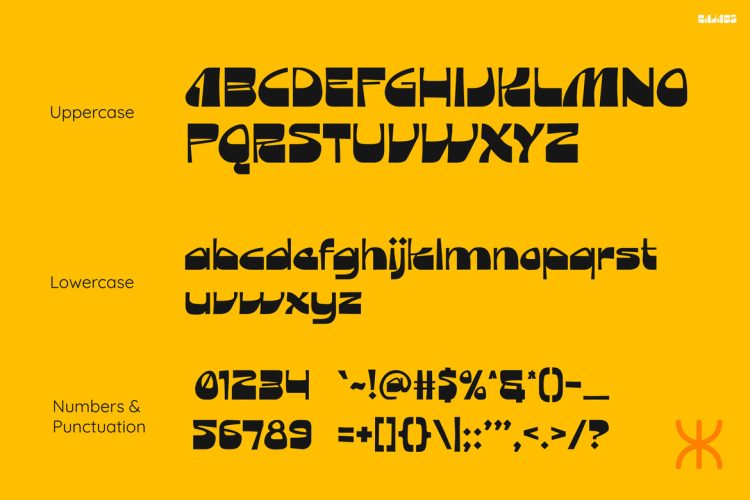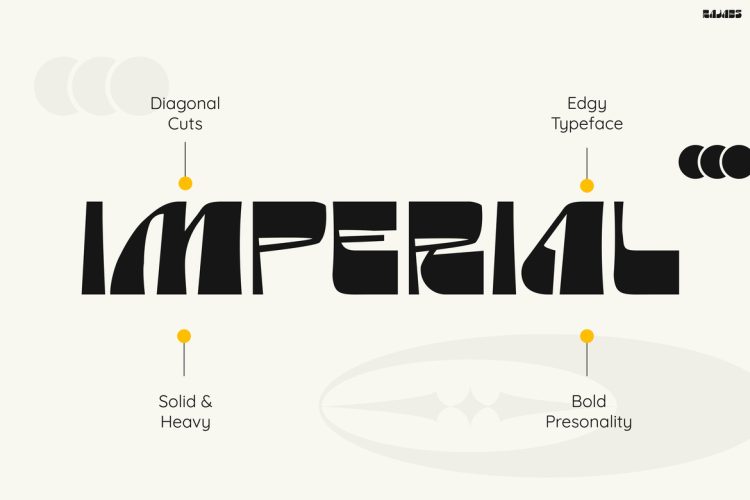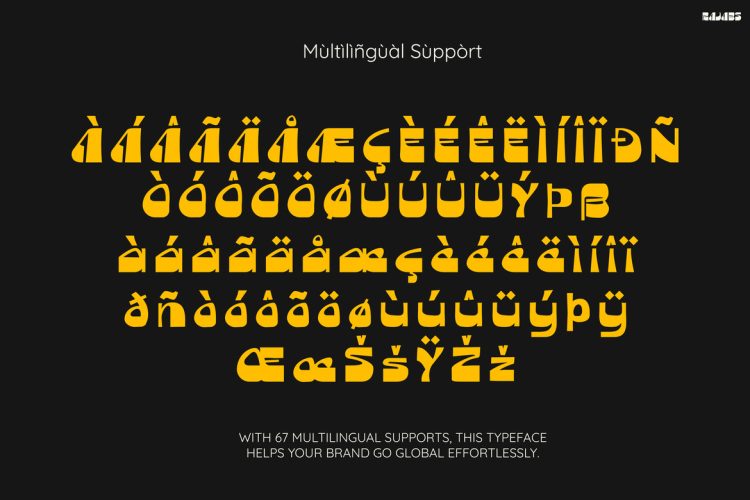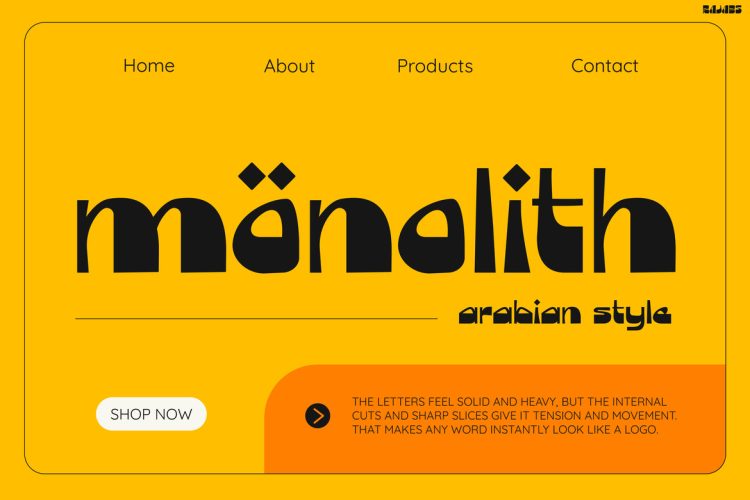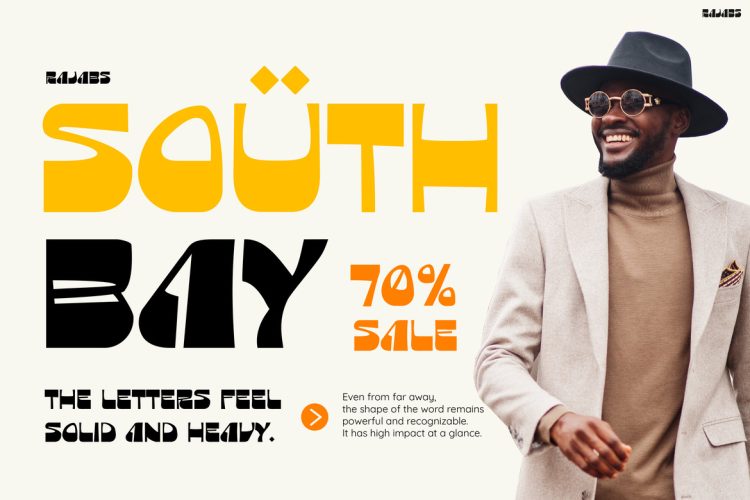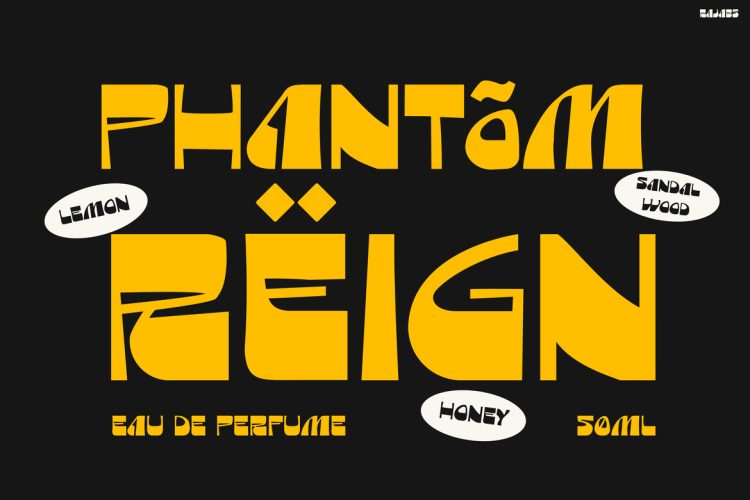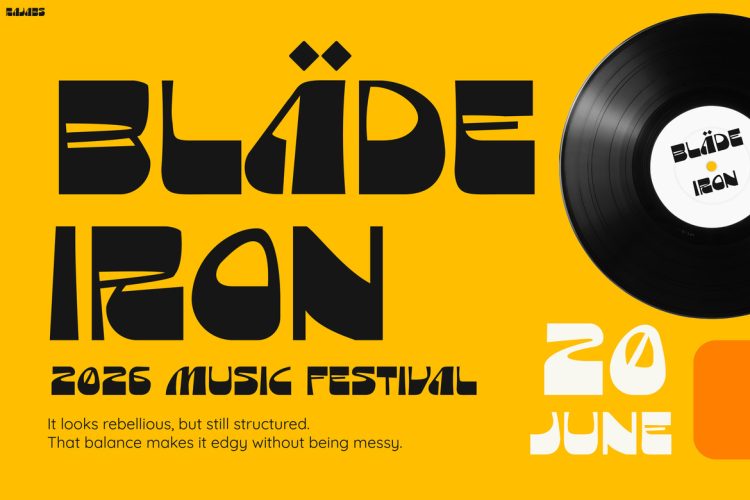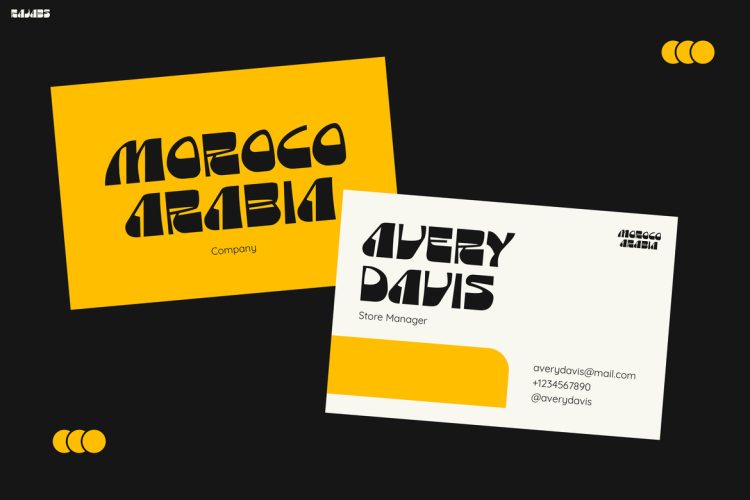
Instagram Font Rajabs – Where Arabic Elegance Meets Modern Edge
Instagram Font Rajabs captures the spirit of Arabic-inspired aesthetics while projecting bold, futuristic confidence. Designed with sharp geometric construction and subtle calligraphic influence, this display typeface delivers a powerful visual identity that feels both cultural and contemporary. Its angled cuts, extended strokes, and rhythmic curves echo the elegance of Arabic letterforms; meanwhile, the structured framework keeps it modern and globally adaptable. As a result, every word appears intentional, premium, and full of authority.
The uniqueness of Instagram Font Rajabs lies in its balance. On one hand, it carries strong architectural weight that commands attention in headlines and logos. On the other hand, its flowing details soften the structure, creating harmony between power and artistry. Because of this contrast, the font performs exceptionally well in high-impact layouts. Whether placed on luxury branding, fashion editorials, music festival posters, or premium packaging, it consistently delivers clarity and distinction. Furthermore, with support for 67 languages, it enables seamless international communication while preserving its unique stylistic voice. Complete uppercase, lowercase, numerals, punctuation, and multilingual glyphs provide the flexibility designers need.
Design Character
Instagram Font Rajabs thrives in projects that demand cultural depth and bold modern expression. It enhances Middle Eastern branding, perfume labels, architectural presentations, tech startups, event promotions, and premium merchandise. Additionally, its commanding presence strengthens logos and social media visuals.
Who Itโs For
This typeface is ideal for designers, creative agencies, fashion brands, entrepreneurs, and marketing teams seeking a refined yet striking typographic statement.